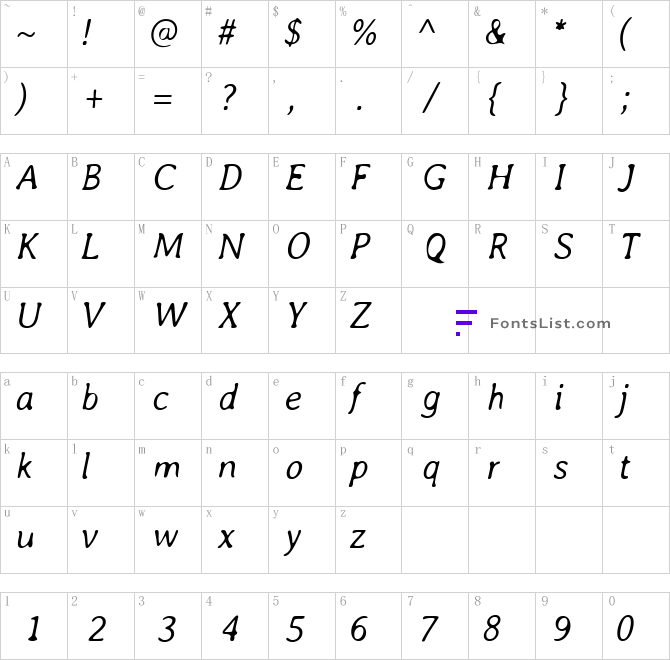
- Font Name:Averia
- Subfamily:LightItalic
- Full Name:Averia-LightItalic
Averia-LightItalic.ttf is a very beautiful artistic font, Averia-LightItalic.ttf is widely used in the design and printing of various books and pictures,Averia-LightItalic.ttf has a strong visual impact,Averia-LightItalic.ttf is a commonly used font in newspapers, magazines and books, and is used in posters, e-commerce Poster design, store design, logo design, font design and other fields.Averia-LightItalic.